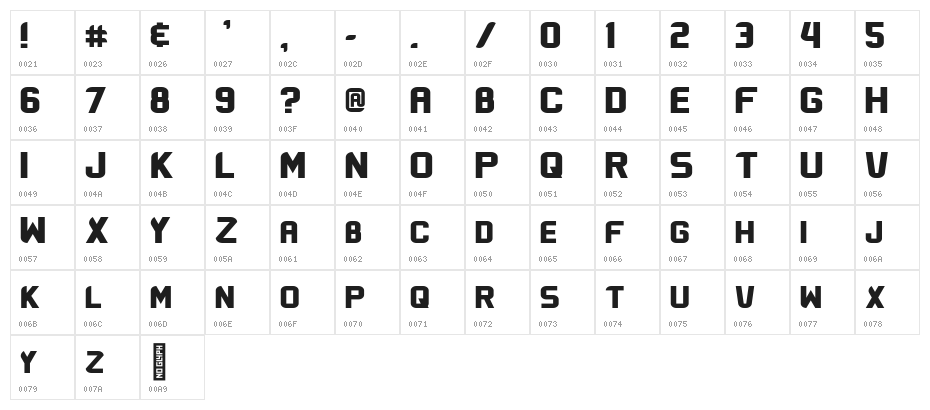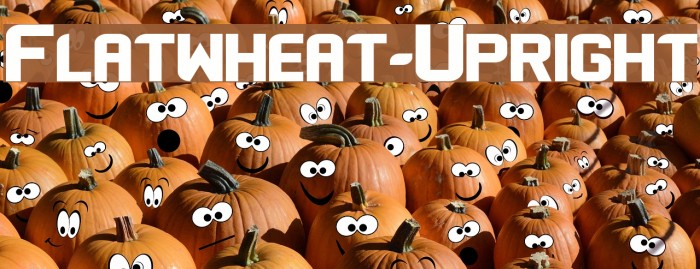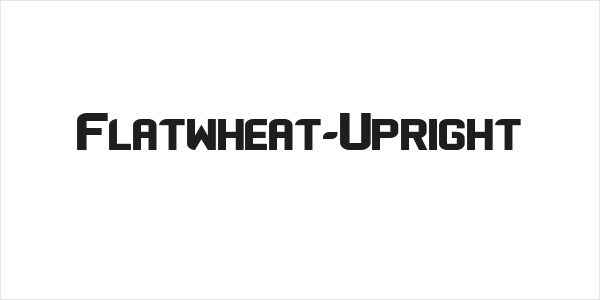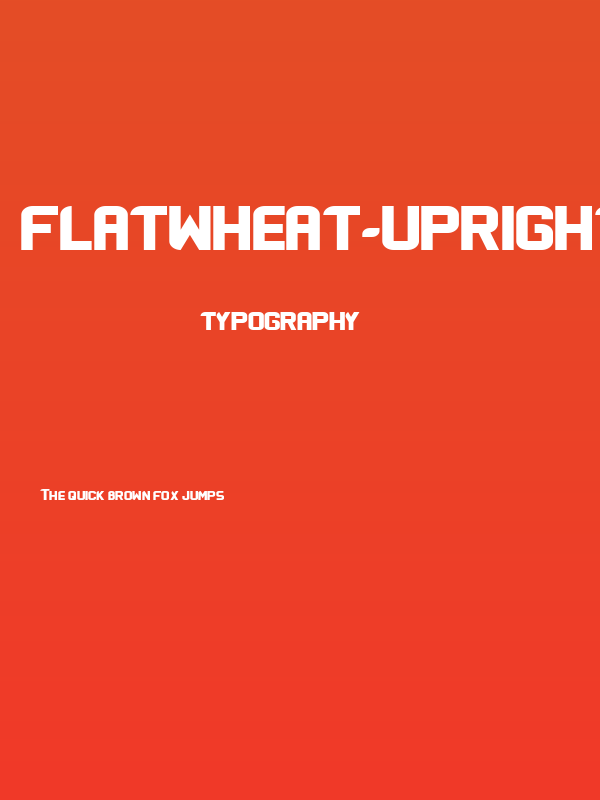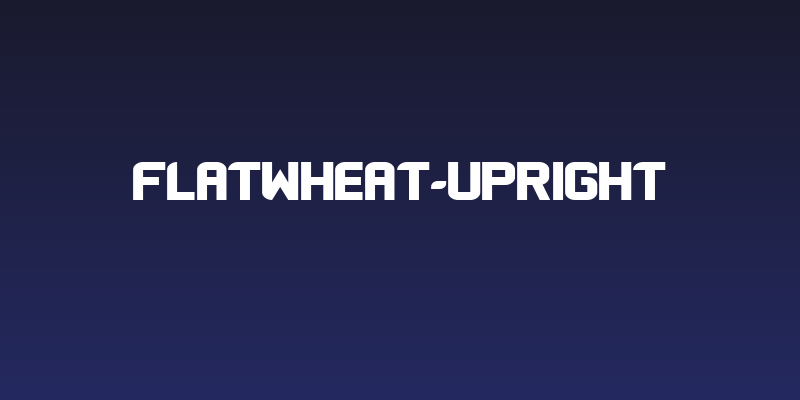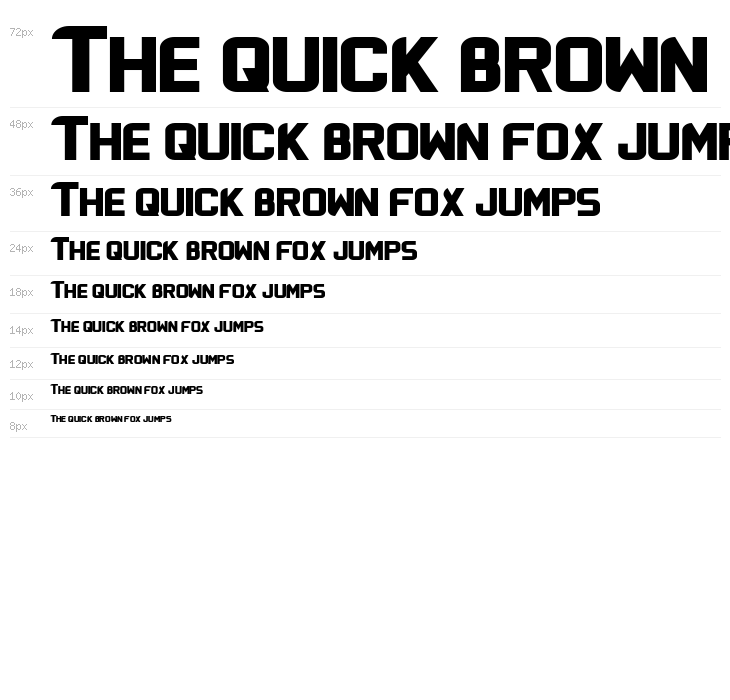
Flatwheat-Upright Font
Flatwheat-Upright Description
This font features a bold, geometric design with strong, angular lines and a modern aesthetic. The uppercase letters are uniform in height, creating a cohesive and structured appearance. The numerals are equally bold, maintaining the same geometric style as the letters. The font lacks traditional serifs, giving it a clean and contemporary look. The characters are tightly spaced, enhancing the compact and impactful nature of the design. The absence of certain special characters suggests a focus on basic alphanumeric use, making it ideal for straightforward, bold statements.
| Proposed Projects | Ideal for headlines, posters, branding, and any project requiring a strong visual impact. |